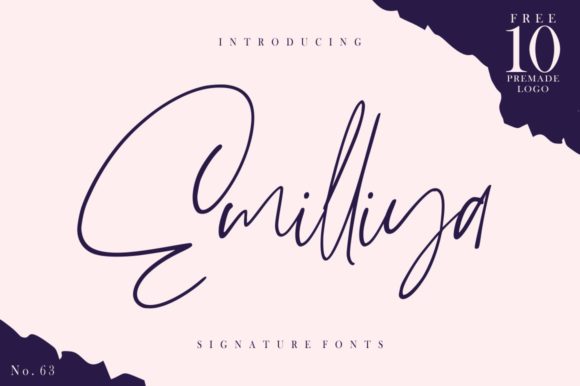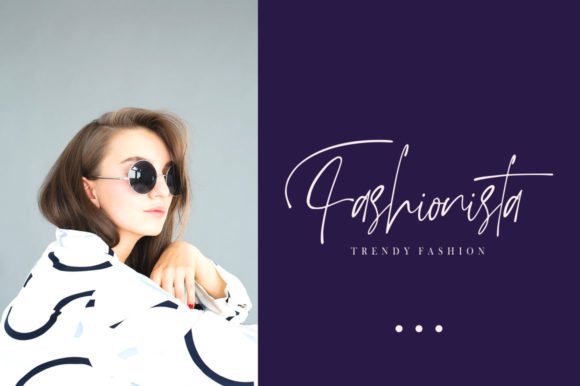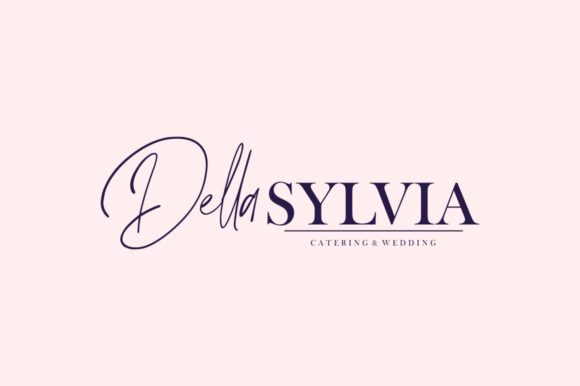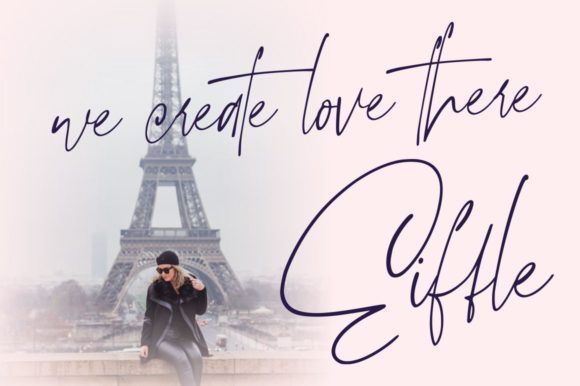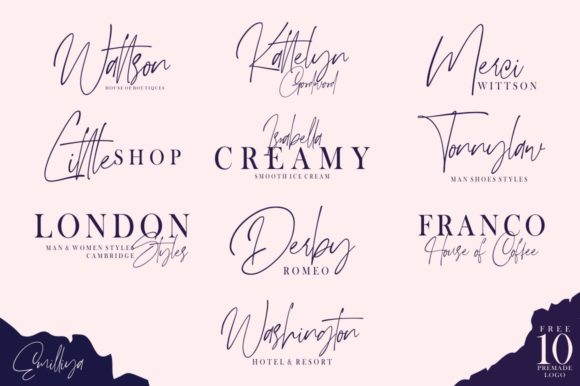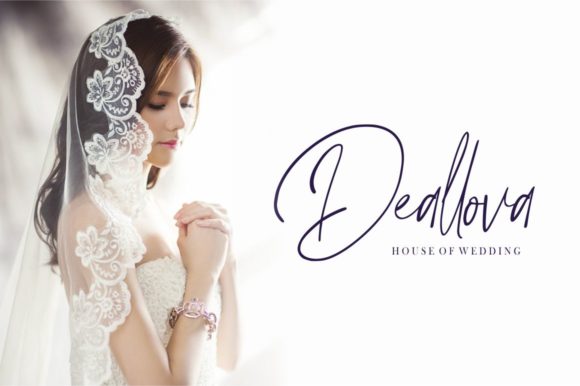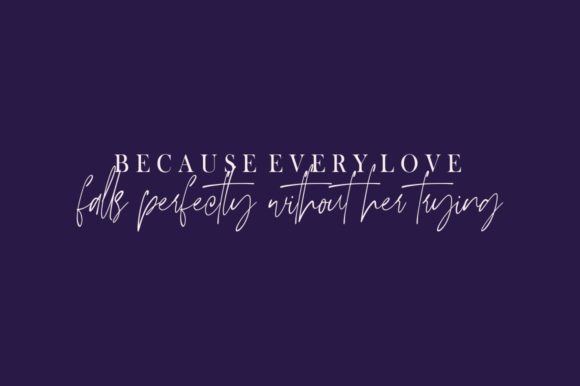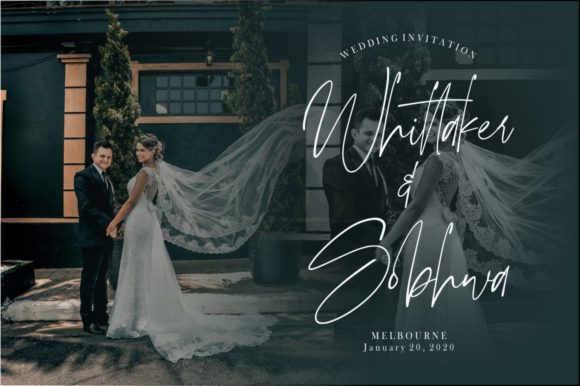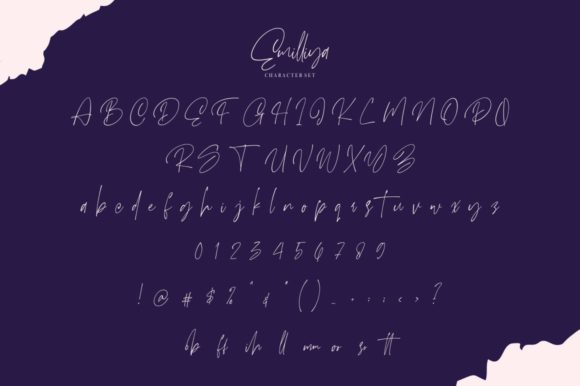
Emilliya Font
About Emilliya Font
Emilliya feels luxurious and spacious, which makes this font a clear standout. Get inspired by its unique charm, and turn any design idea into a true standout.